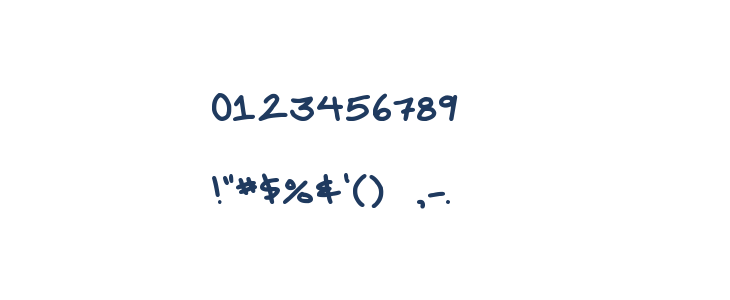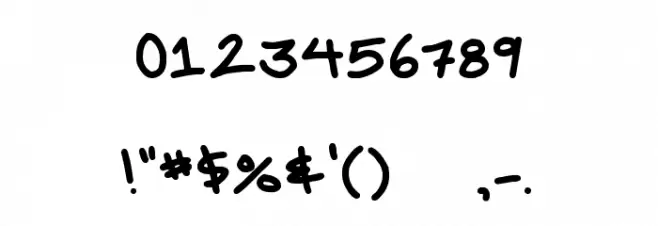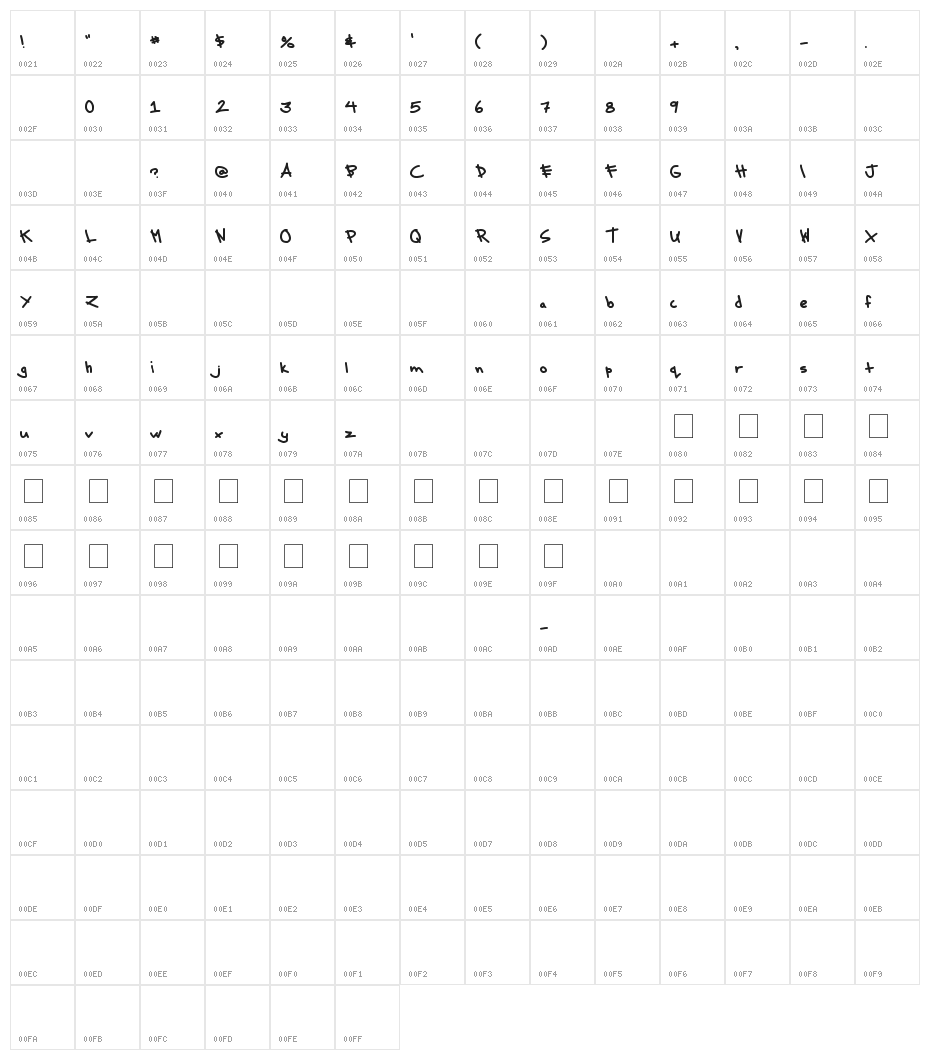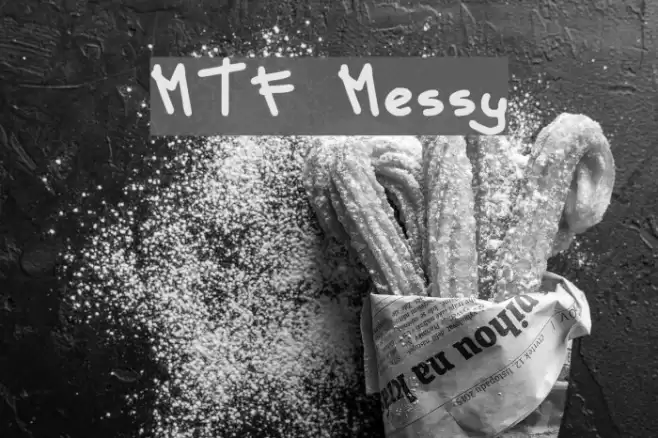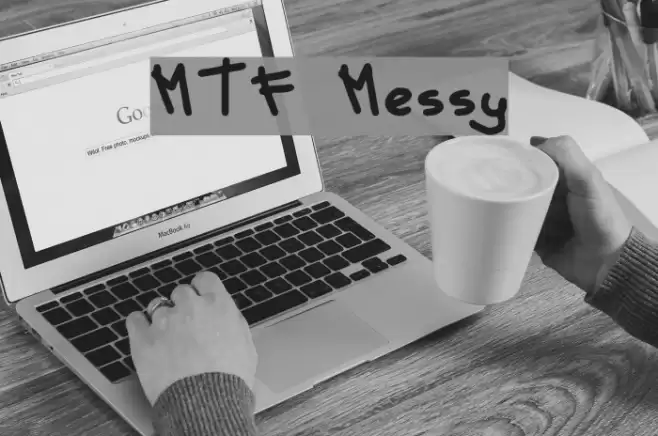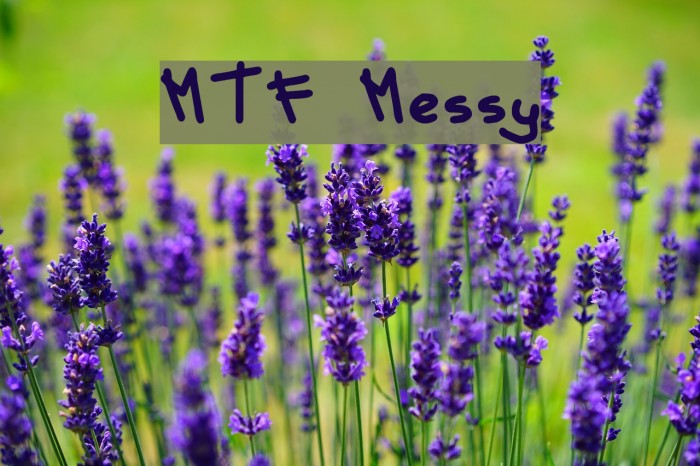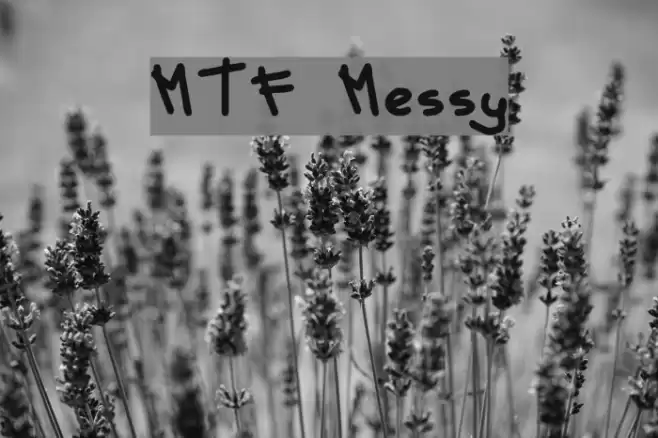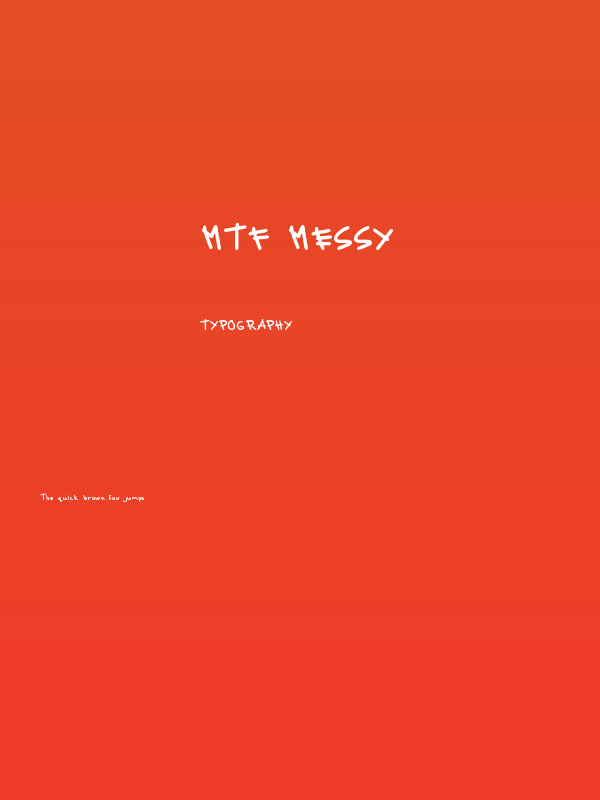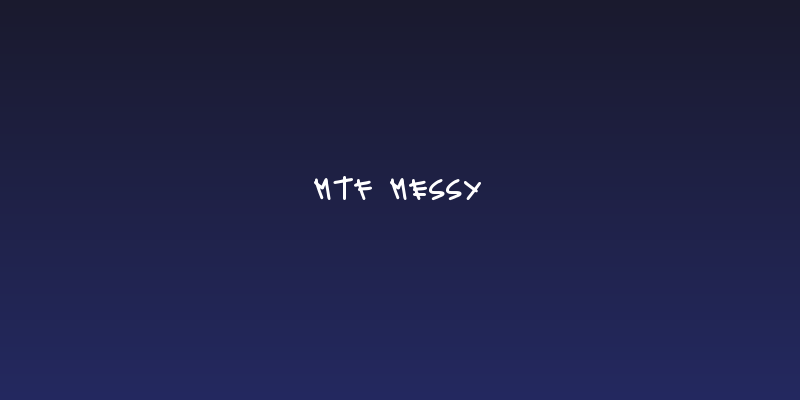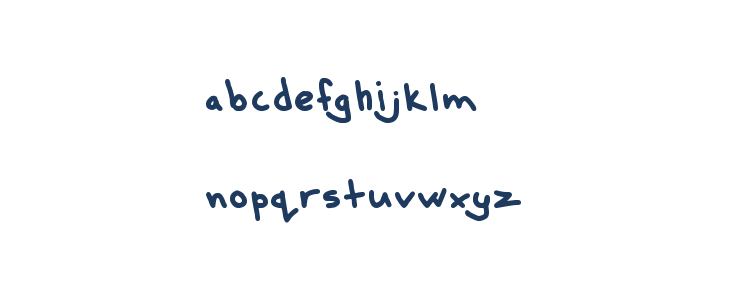
MTF Messy Font
This playful and informal font features a handwritten style with uneven strokes and a casual appearance. The letters are slightly irregular, giving it a whimsical and approachable feel. The uppercase and lowercase characters maintain a consistent style, with rounded edges and a slight tilt, enhancing its relaxed vibe. Numbers and special characters follow the same playful design, making it suitable for projects that require a personal touch. The font's overall appearance is reminiscent of a child's handwriting, making it ideal for creative and fun applications.
| Proposed Projects | Ideal for children's books, greeting cards, playful branding, and informal invitations. |